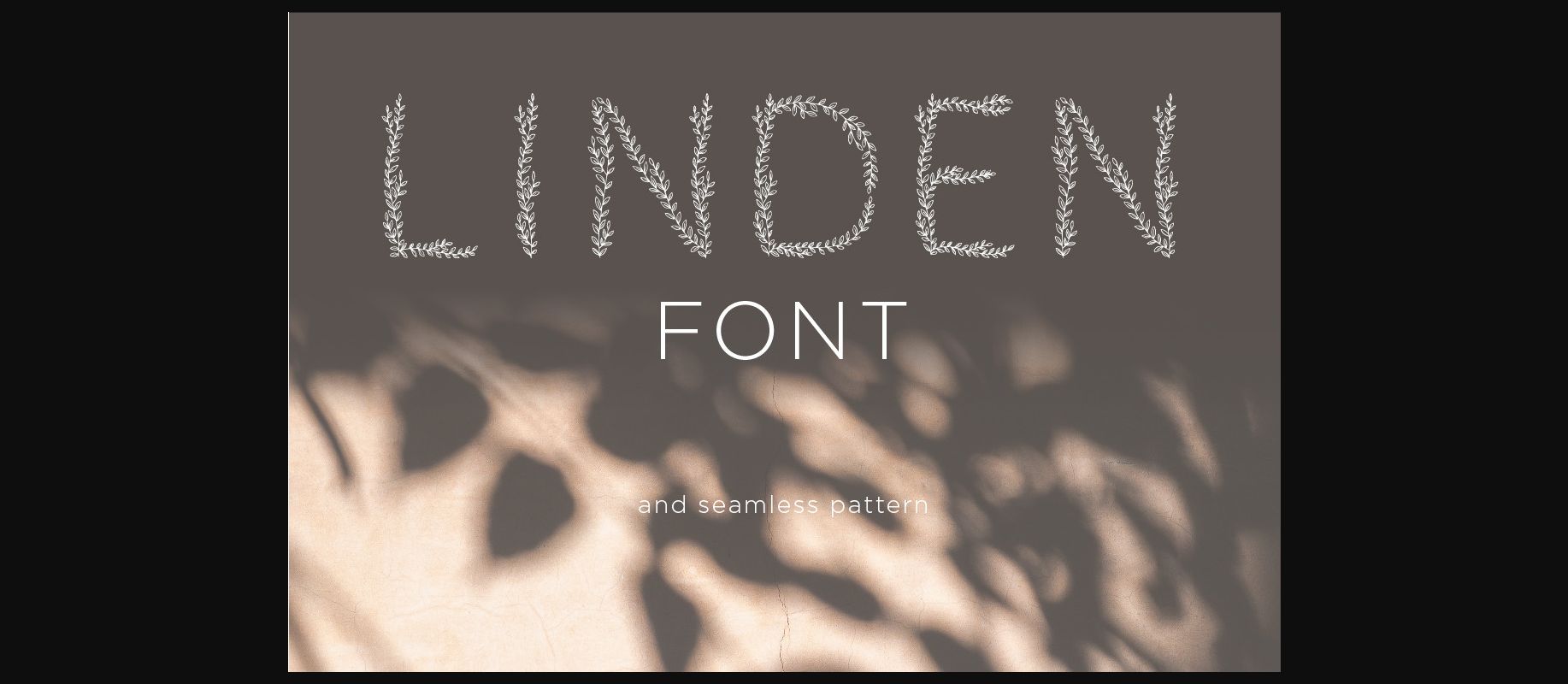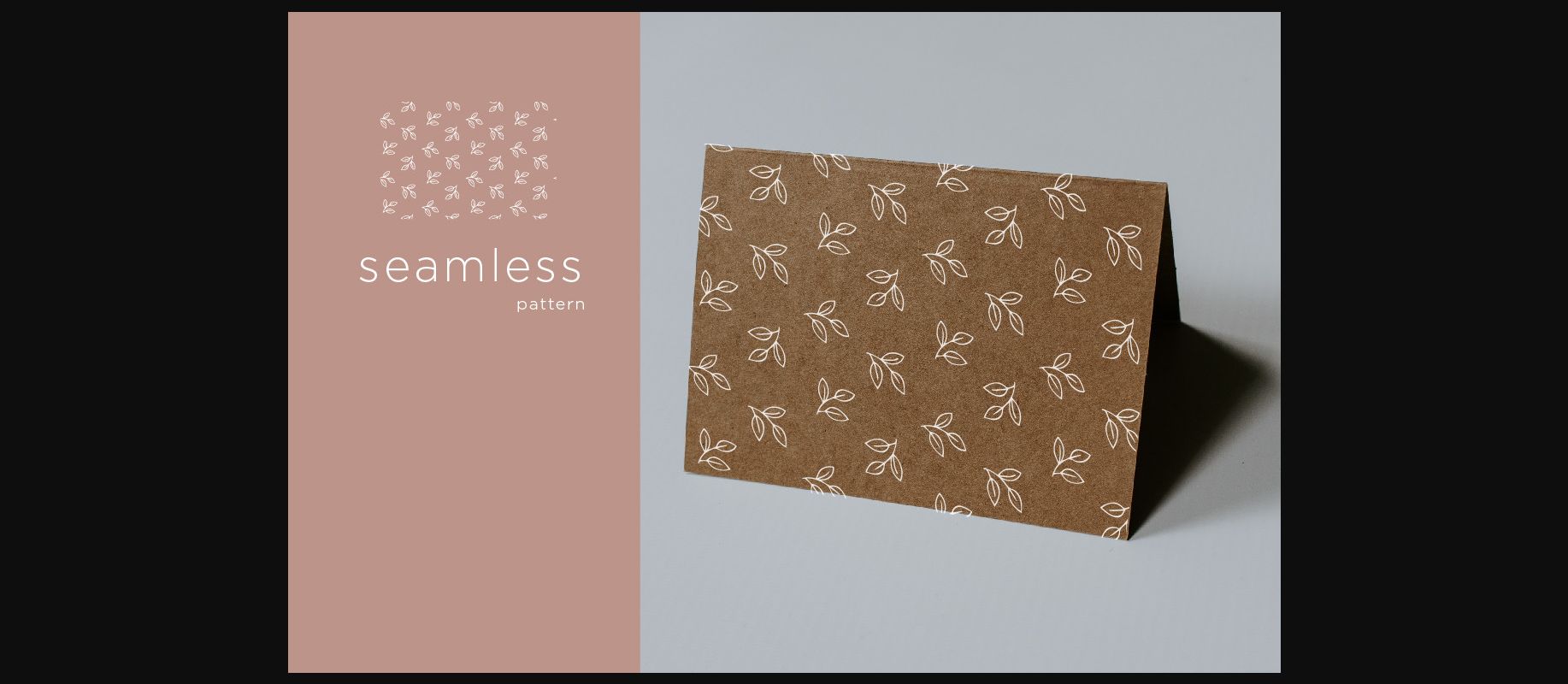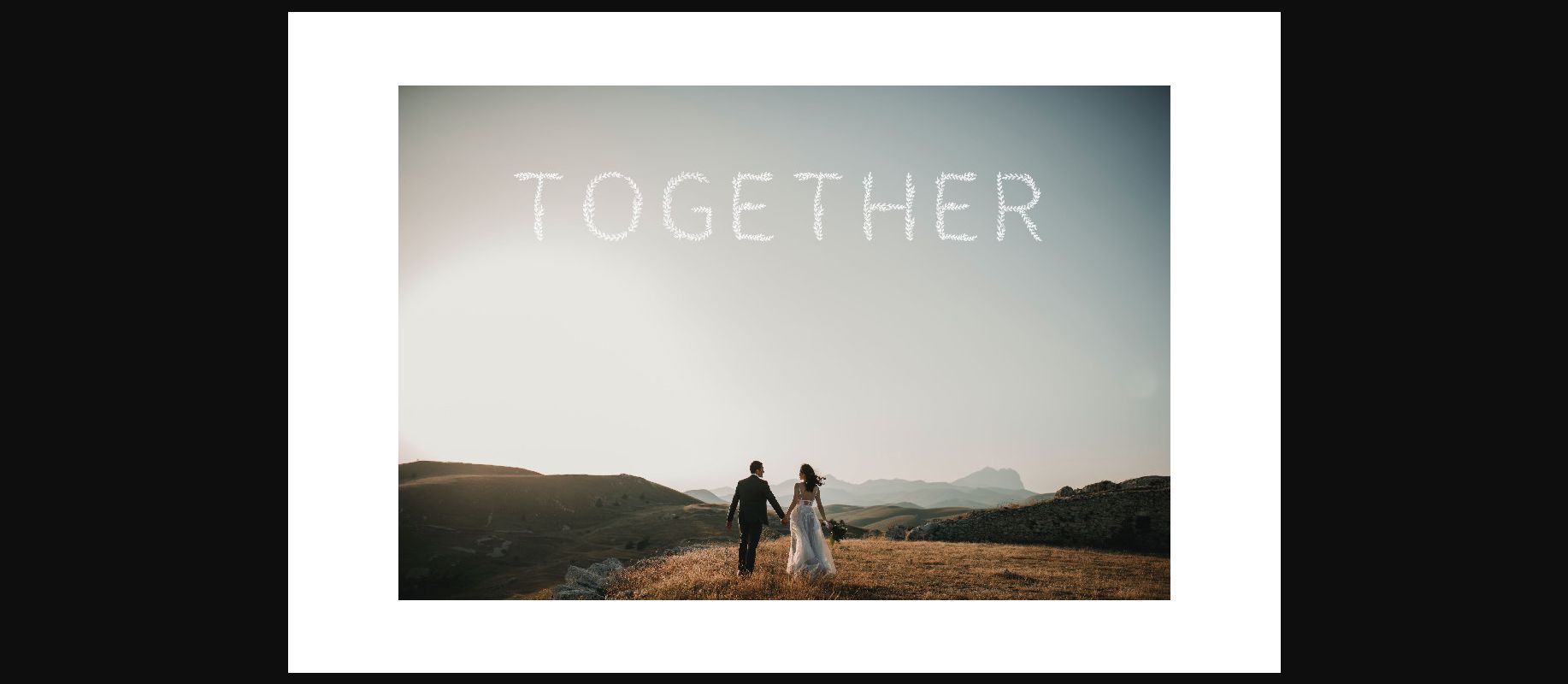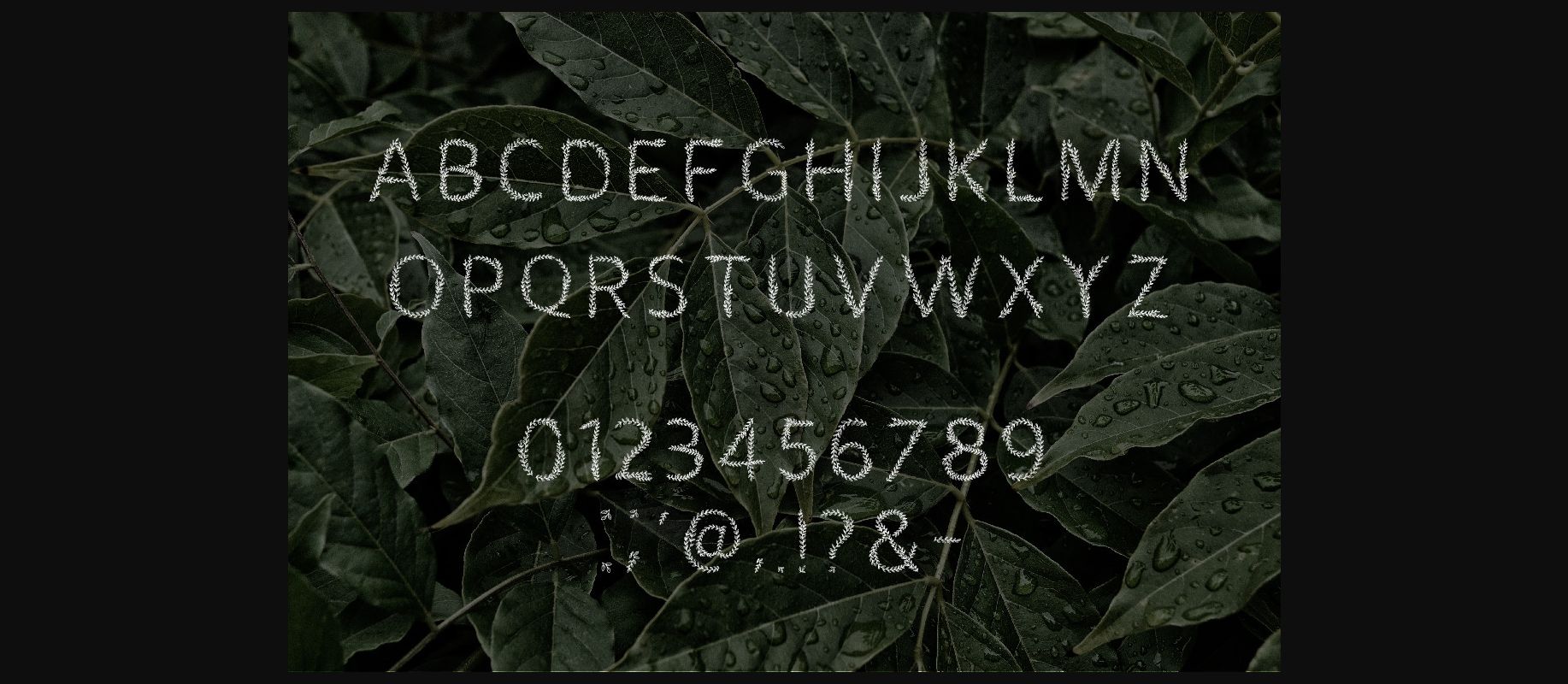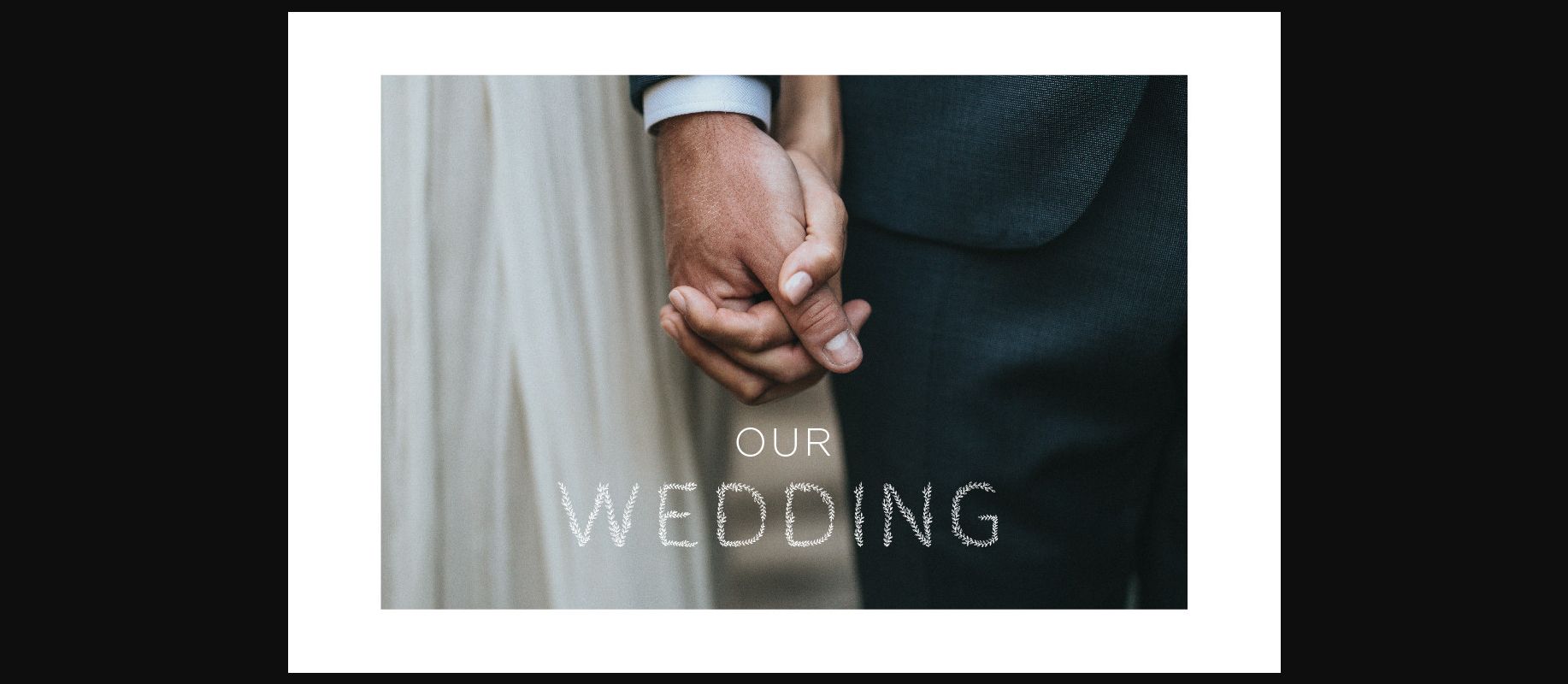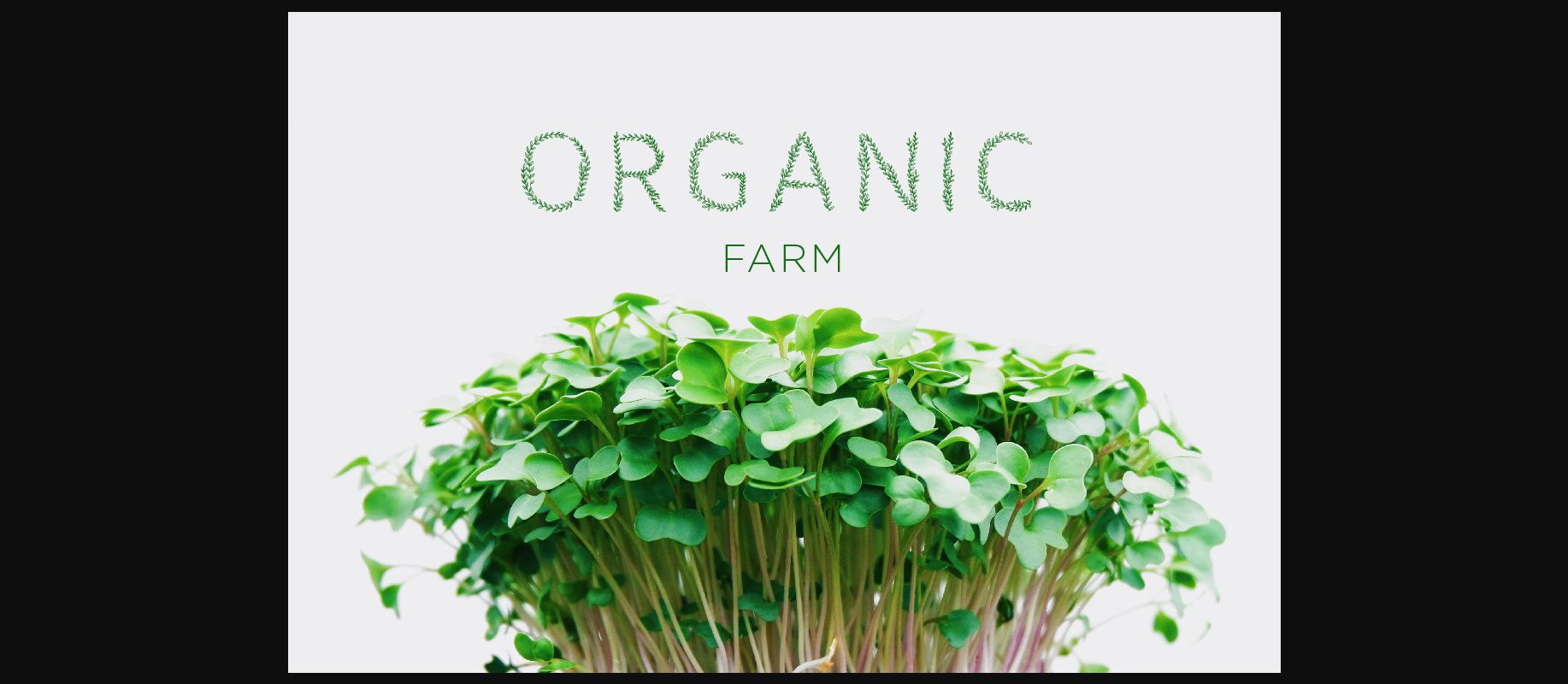
About Linden Font
Linden is an elegant, floral decorative font.
This font is perfect for logos, branding, product packaging, posters, quotes, social media and more. It will look outstanding in a wide range of contexts.